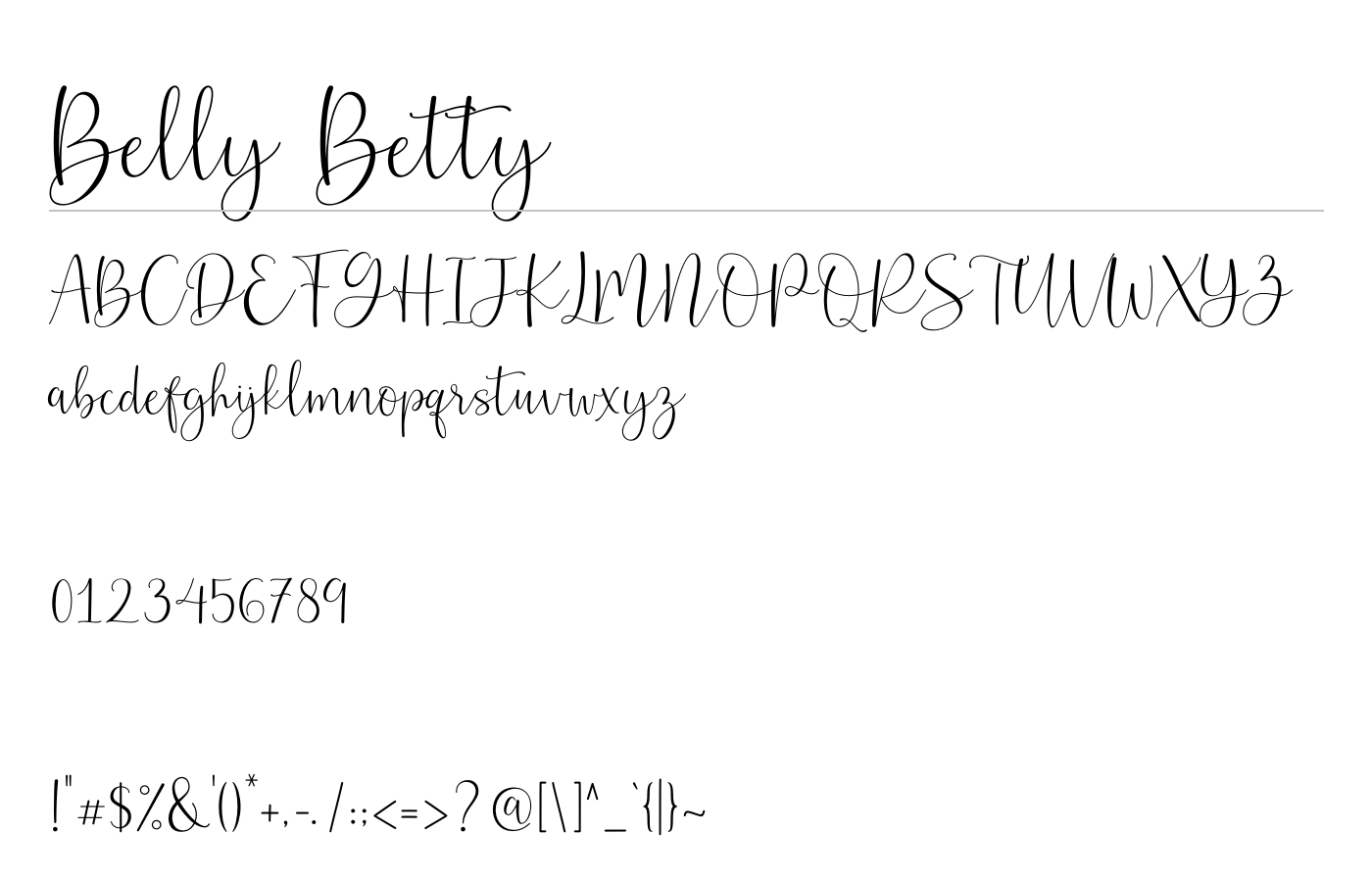
Belly Betty is a delicate, hand-drawn script font featuring slender, flowing letters with elegant swashes and playful loops. Its light weight and graceful style make it perfect for invitations, branding, and feminine designs that seek a personal, charming touch. This font works beautifully for creative projects that want to convey warmth, creativity, and sophistication.
Belly Betty Font